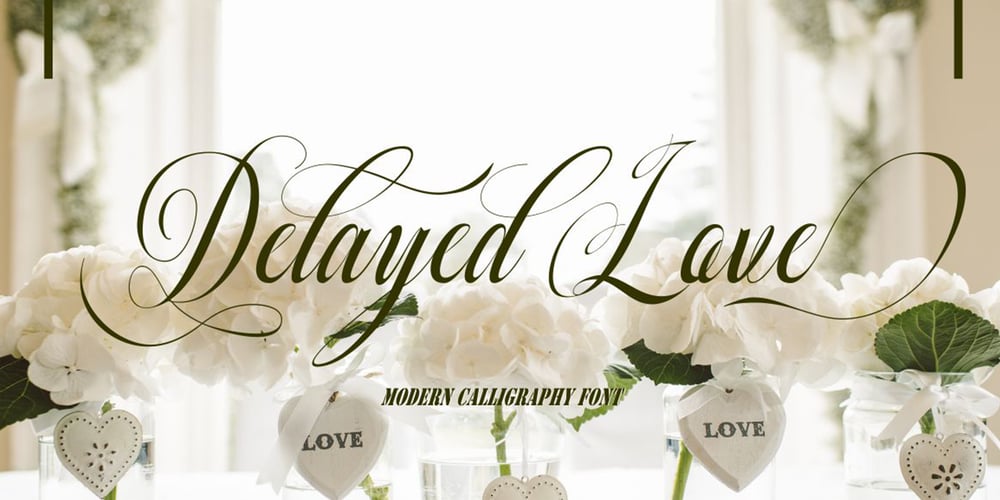
Delayed Love
Delayed Love font
Delayed Love Font Family was designed by Muhammad Abbas and published by Abbastype. Delayed Love contains 1 styles and family package options. Delayed Love is a unique blend of a classic and modern script style. It works well for logos, wedding invitations, posts, t-shirts, letterhead, signage, labels, posters, badges and more.It includes OpenType features with alternative styles, binders and multi-language support.To activate the OpenType Stylistic alternative, you need a program that supports OpenType features such as Adobe Illustrator CS, Adobe Indesign & CorelDraw X6-X7, Microsoft Word 2010 or newer versions.How to access all alternative characters, using Windows Character Map with Photoshop:https://www.youtube.com/watch?v=Go9vacoYmBwHow to access all alternative characters using Adobe Illustrator:http://youtu.be/iptSFA7feQ0There are additional ways to access alternatives / swash, using Character Maps (Windows), Nexus Fonts (Windows), Font Book (Mac) or software programs such as PopChar (for Windows and Mac).